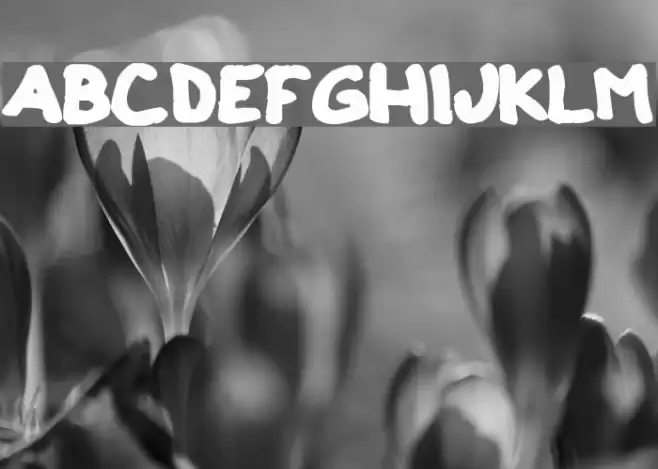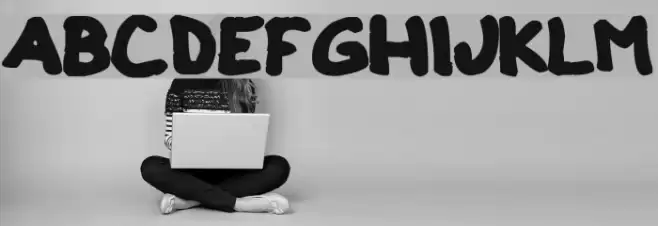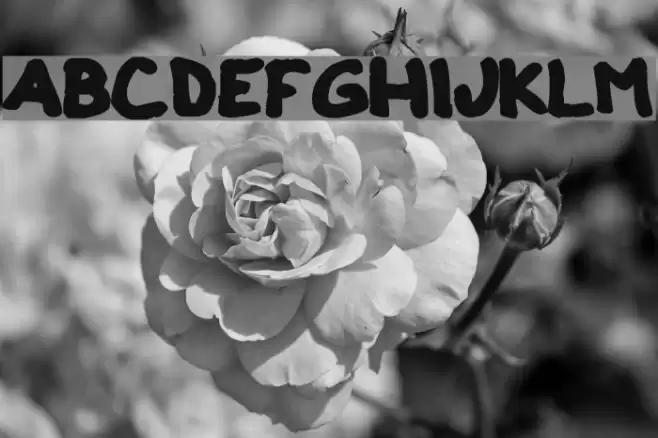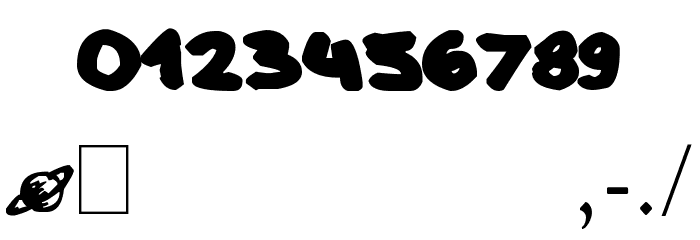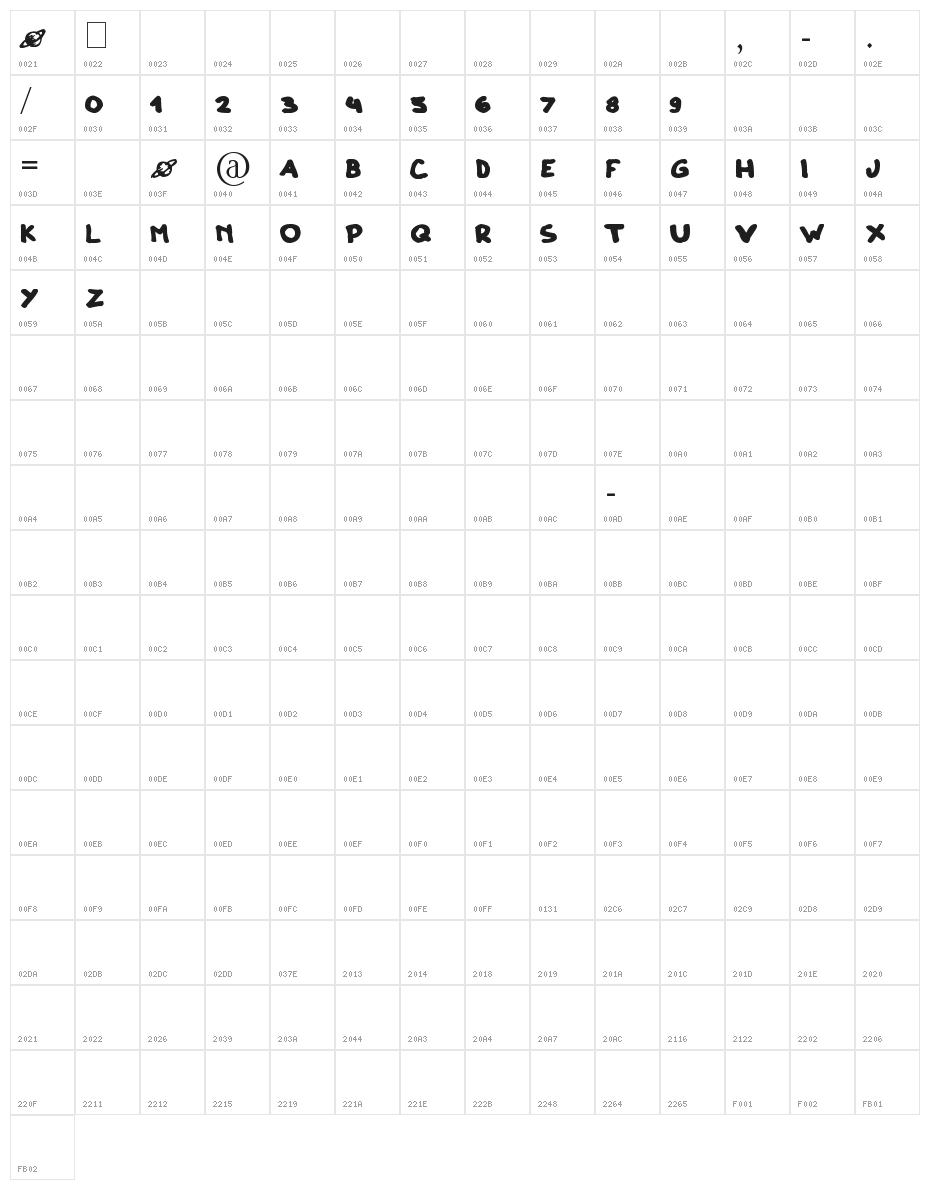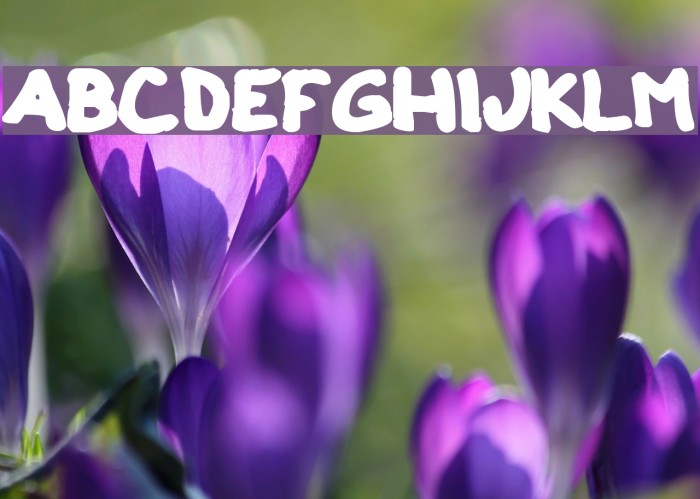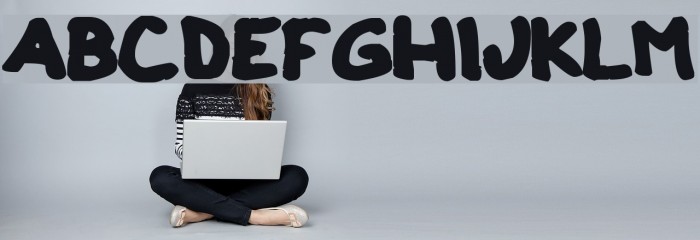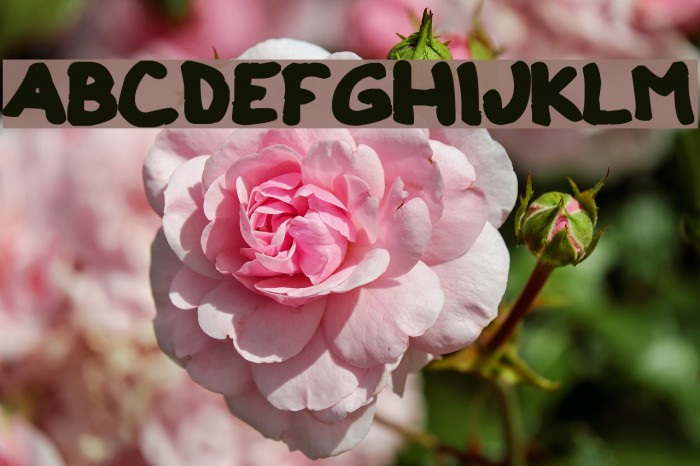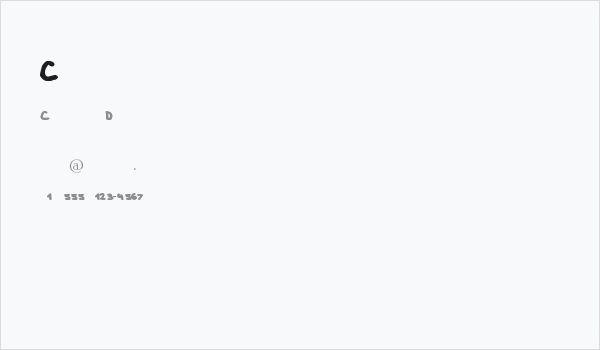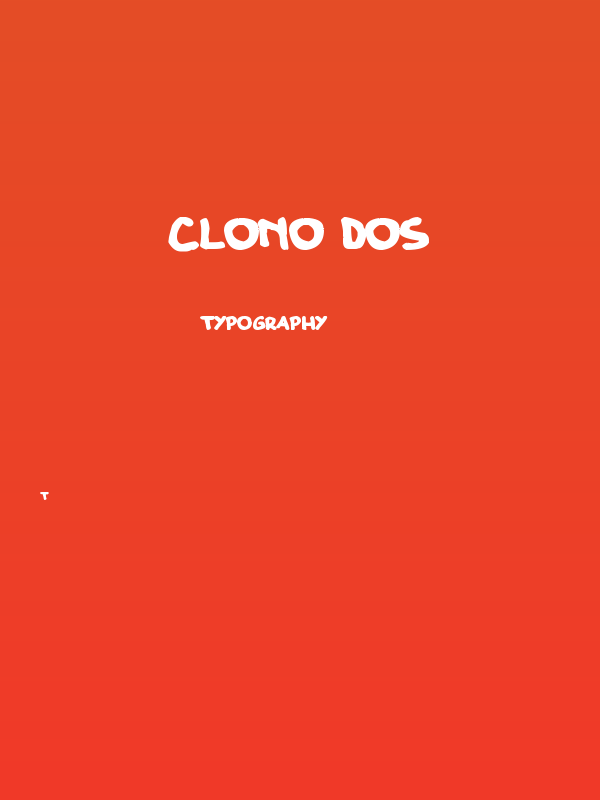
Clono dos Font
Clono dos Description
This font features a bold and playful style with a hand-drawn appearance. The characters are rounded and slightly irregular, giving them a casual and friendly look. The uppercase letters are prominent and well-defined, while the numbers maintain the same playful aesthetic. The font includes a limited set of punctuation marks and symbols, adding to its informal charm. Its thick strokes and rounded edges make it highly legible, even at smaller sizes. The overall design is reminiscent of comic book lettering, making it suitable for projects that require a fun and approachable feel.
A bold, playful font with a hand-drawn, comic-like style from Script fonts.
- Proposed Projects: Ideal for children's books, comic strips, playful branding, and casual invitations.
- Overall Style: Playful, Casual, Comic